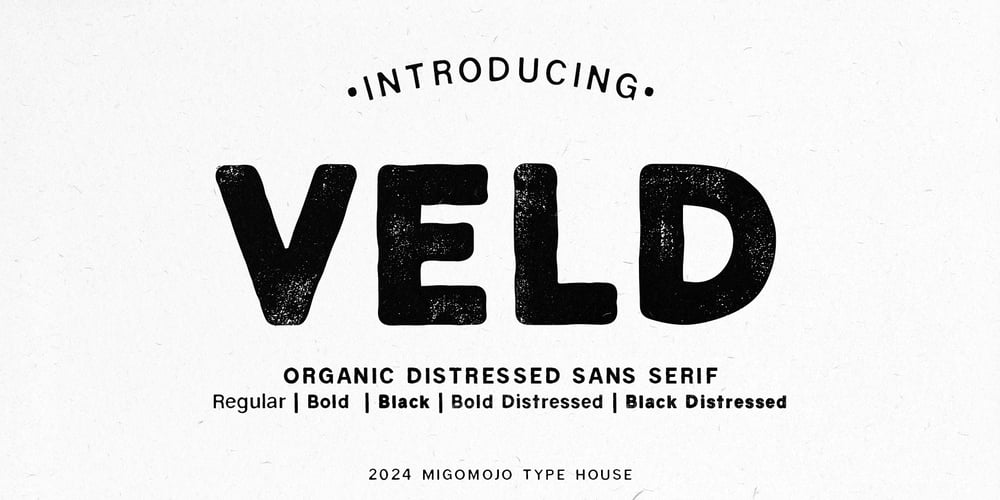
Veld Sans
Veld Sans font
Veld Sans Font Family was designed by Komara Sani and published by Migomojo Type House. Veld Sans contains 5 styles and family package options. Veld is a organic sans-serif font family that effortlessly blends modern simplicity with vintage ambience. Its handcrafted details and organic curves give it a distinctive, inviting character. With three weights and two textures, including a striking distressed option, Veld offers endless creative possibilities. Perfect for adding a touch of vintage flair to your contemporary designs, or for creating authentic gritty visuals. Cheers!